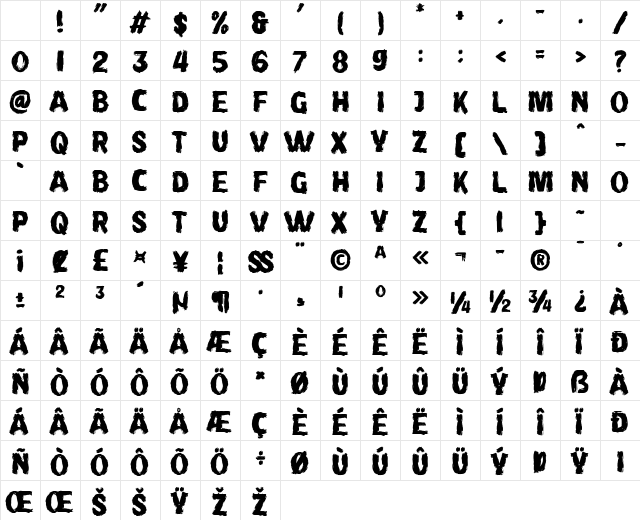
Complete Kinken Regular glyph index. Displaying only characters natively supported by Kinken Regular font.
Kinken is a composed and adaptable typeface that performs quietly and consistently across a wide range of design contexts.